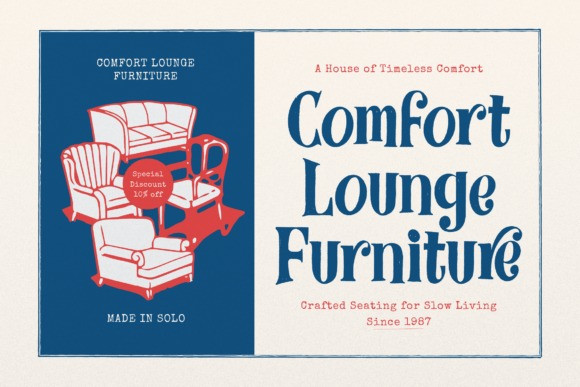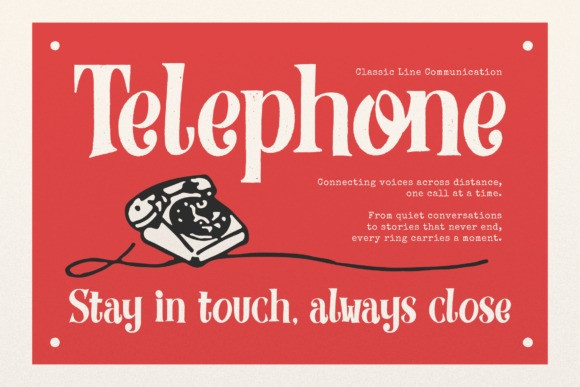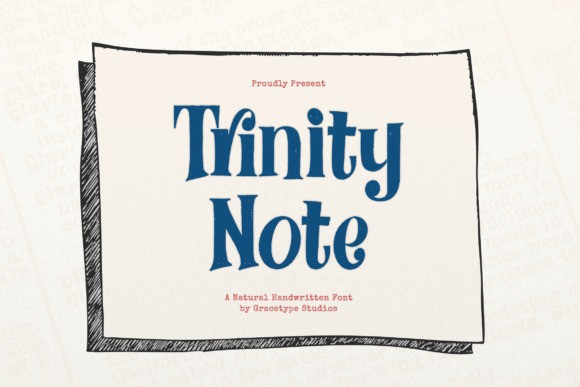
Trinity Note Font
Trinity Note Font a natural handwritten font proudly. This charming display typeface features tall, rhythmic letterforms with an organic, ink-on-paper texture that perfectly mimics authentic penmanship. With its friendly “back-of-the-napkin” soul and approachable weight, Trinity Note is the premier choice for independent lifestyle branding, boutique stationery, heartfelt greeting cards, and cinematic “scrapbook-style” social media headers.